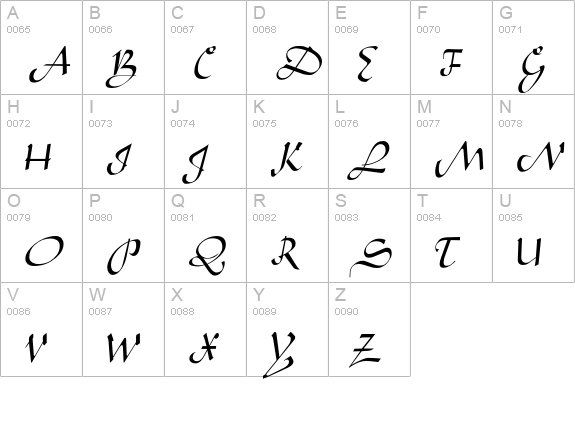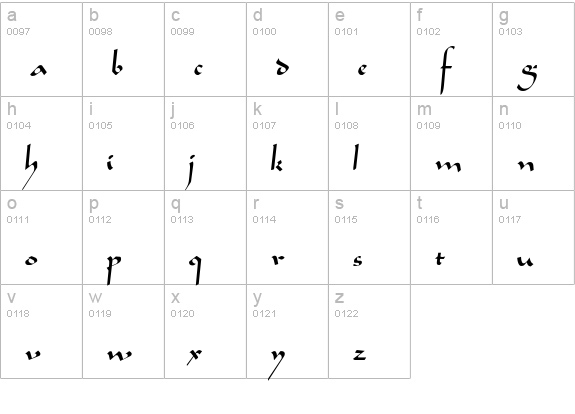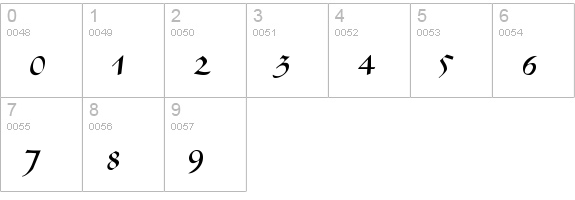
Aladdin Font Details
The Aladdin font is a whimsical and enchanting typeface that brings a touch of magic to your designs. With its flowing lines and intricate details, this font captures the spirit of adventure and wonder inspired by the classic tale of Aladdin. Whether you're creating invitations, posters, or branding materials, the Aladdin font will transport your audience to a world of fantasy and imagination. Best of all, this captivating font is available for free download at FontsMarket.com, making it accessible to all who wish to add a touch of Arabian nights charm to their projects. Unleash the magic of the Aladdin font today and watch your designs come to life with a touch of fairy tale allure.